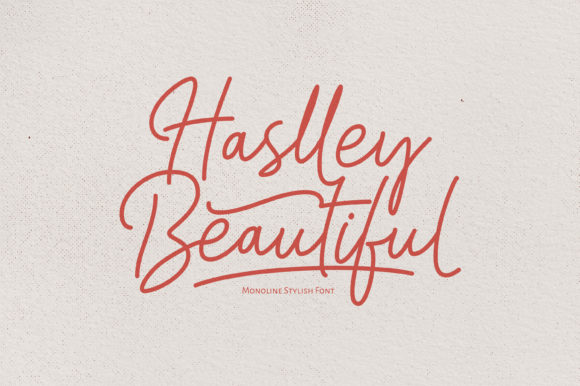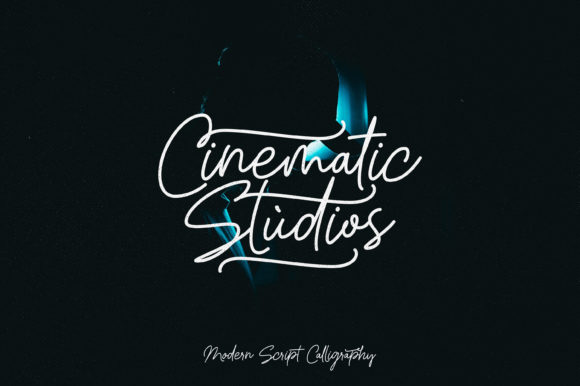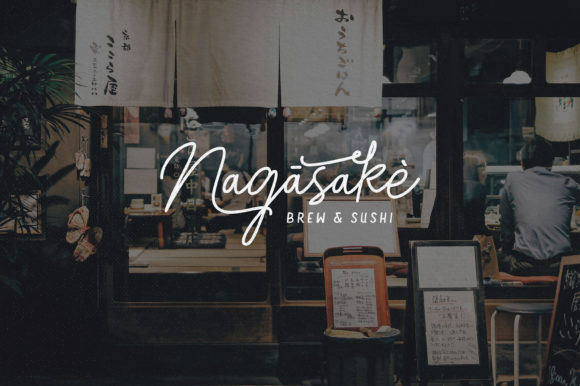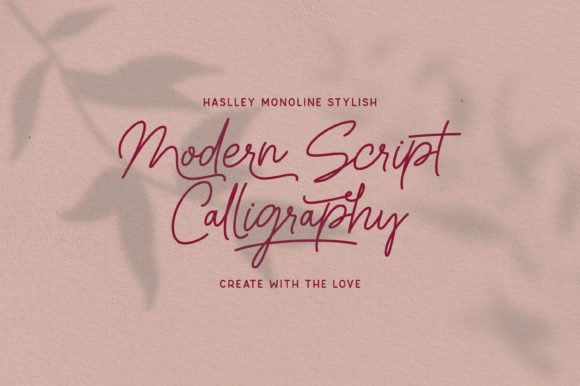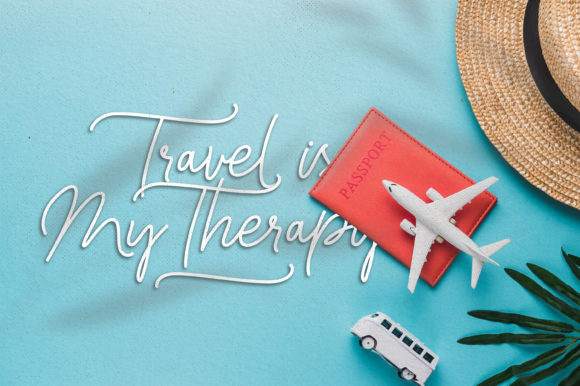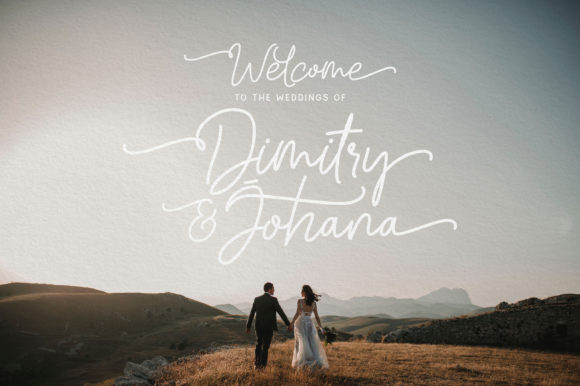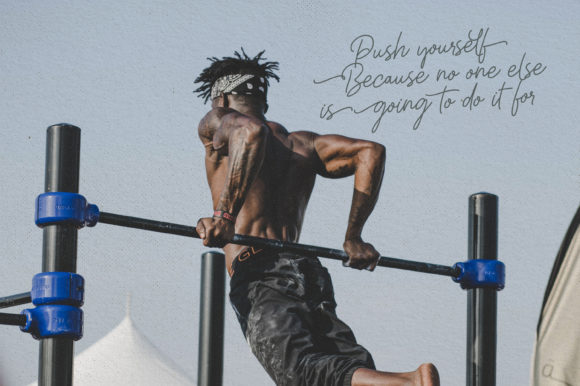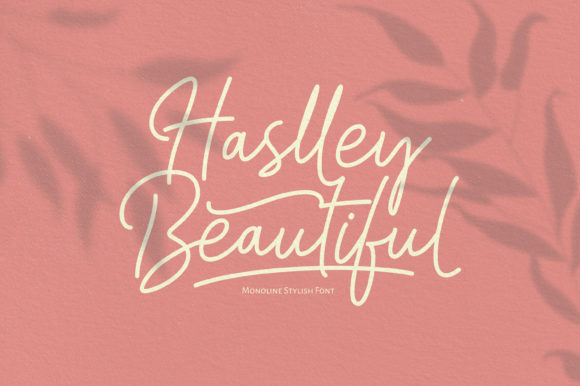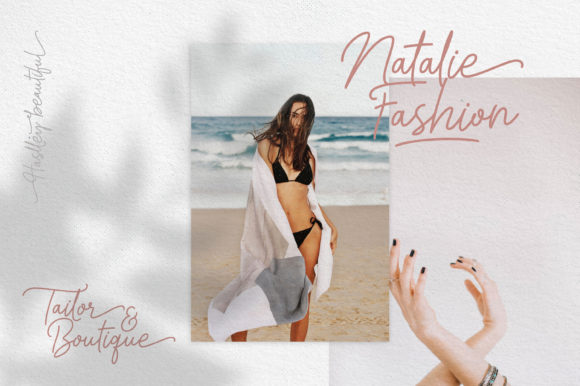
Haslley Beautiful Font
About Haslley Beautiful Font
Haslley Beautiful is a magical handwritten font carefully created with a touch of elegance. This font is PUA encoded which means you can access all of the amazing glyphs and swashes with ease!